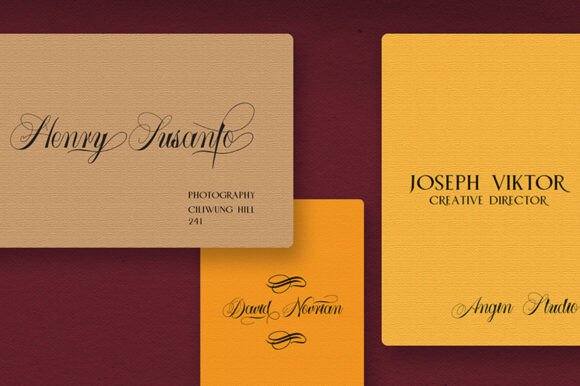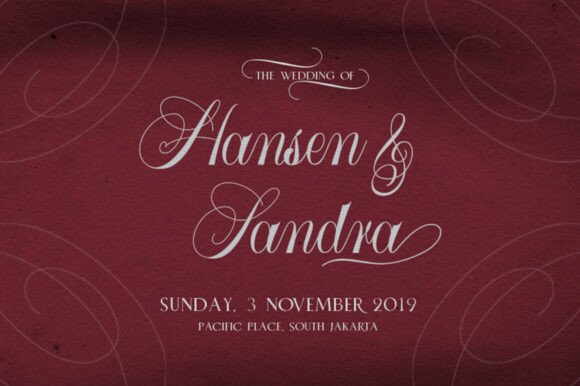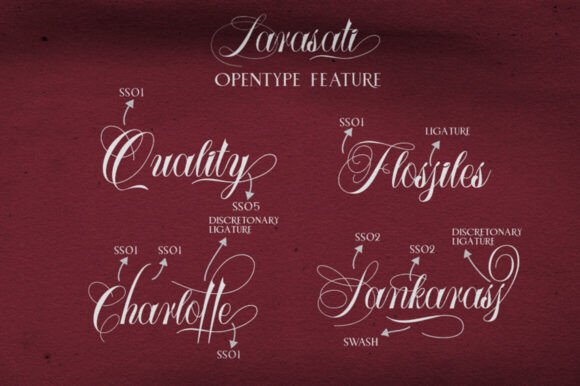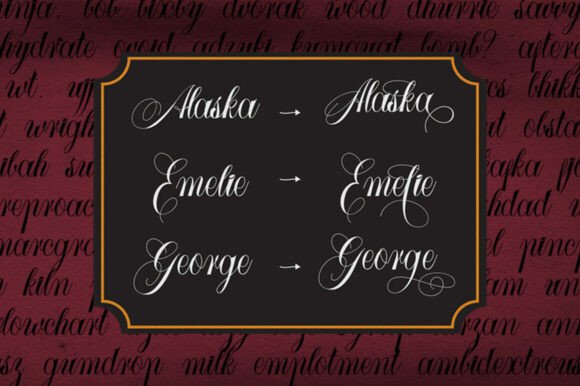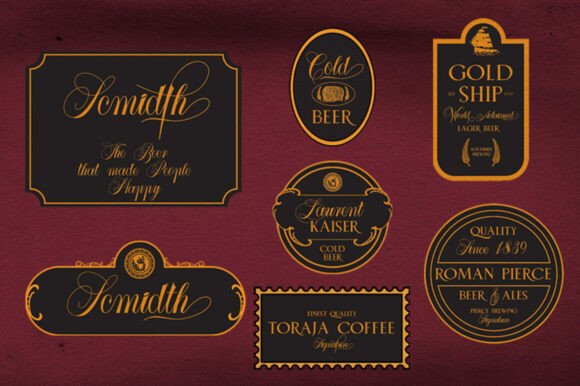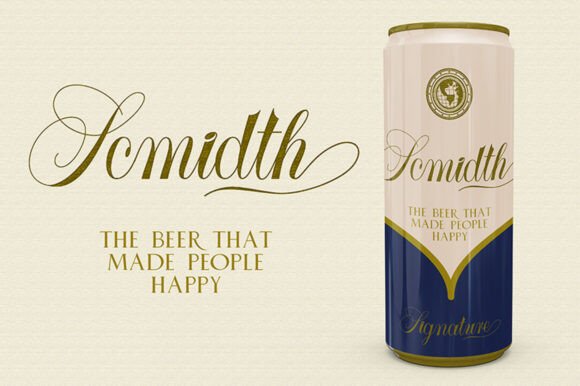
Introduction to Larasati Font Font
Fonts play a crucial role in design, and the Larasati Font font is a typeface that brings both character and versatility to any project. Whether you’re working on a branding project, a website, or a print design, the Larasati Font font offers a unique style that can elevate your work.
Larasati is a beautifull script font created carefully to have a memorable looks, the anatomy inspired by old oblique calligraphy and the wild flourish inspired by old spencerian script, this beauty will give a personal touch to your design.
In general it will give a luxurious and elegant to your design .
Key Features of Larasati Font Font
Why Choose Larasati Font Font?
The Larasati Font font is more than just a typeface – it’s a design tool that helps you communicate your message with style and clarity. Its unique character set and versatile design make it suitable for a wide range of applications, from elegant invitations to bold headlines.
With its carefully crafted letterforms and balanced proportions, the Larasati Font font ensures readability and visual appeal across all mediums.
What makes Larasati Font font special?
The Larasati Font font stands out with its unique design, exceptional readability, and versatility across various design applications.